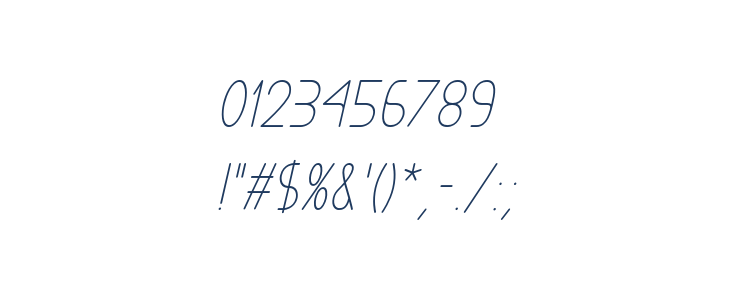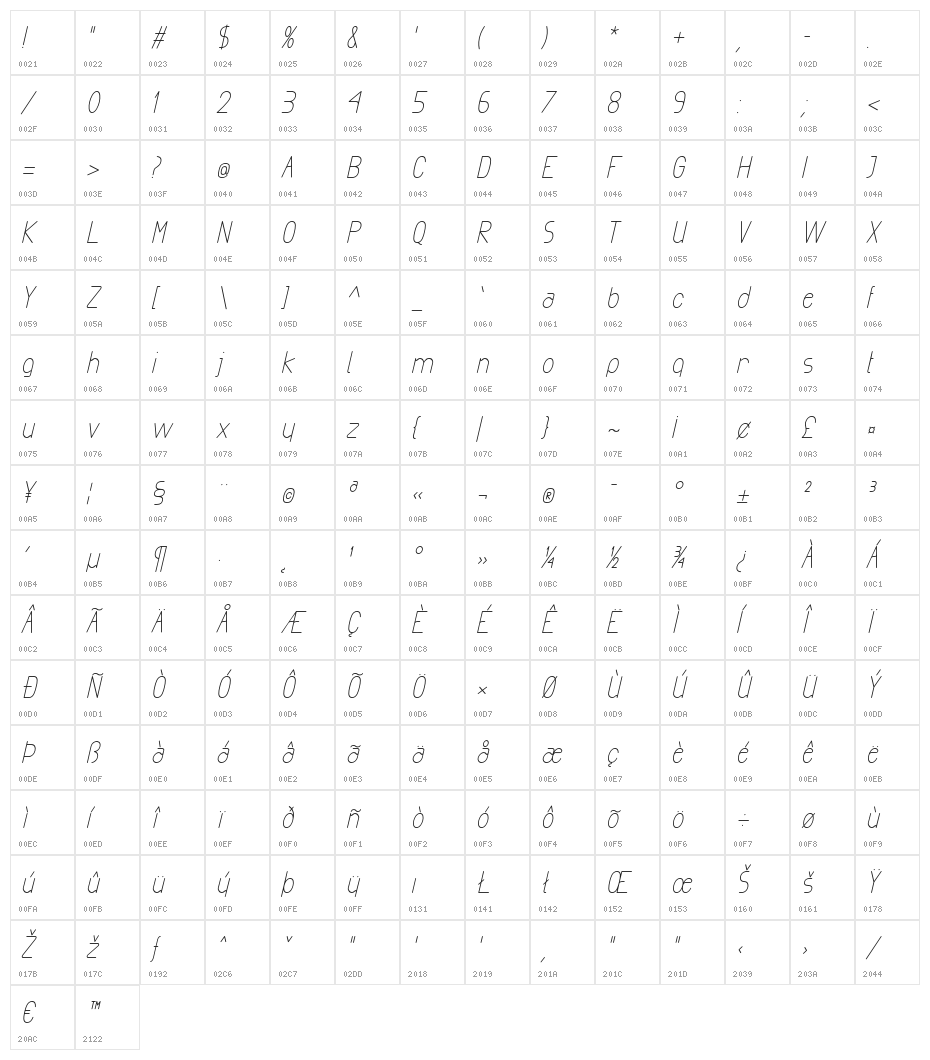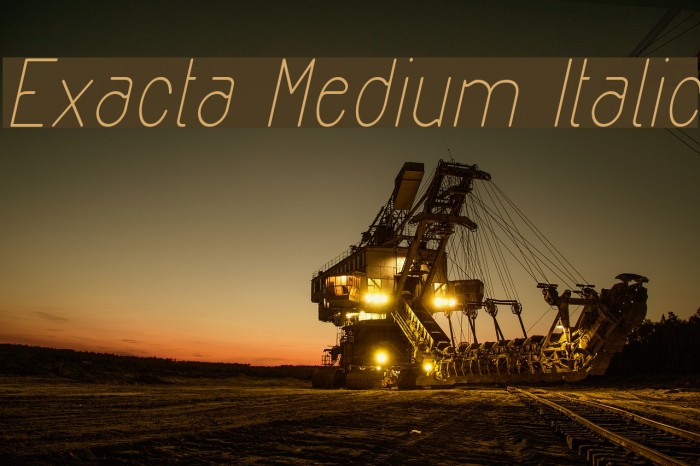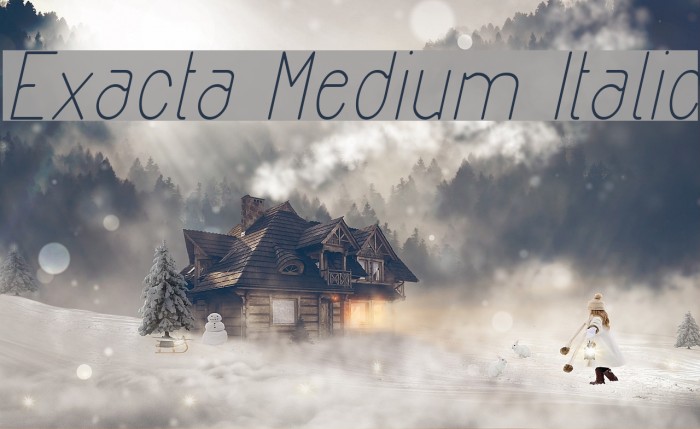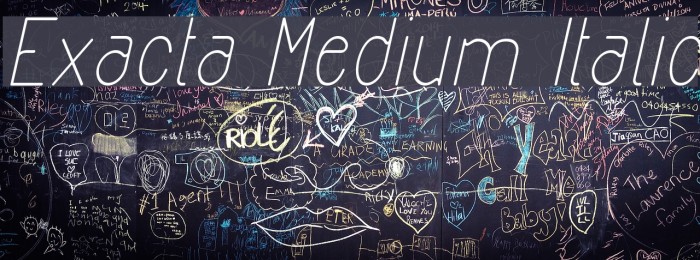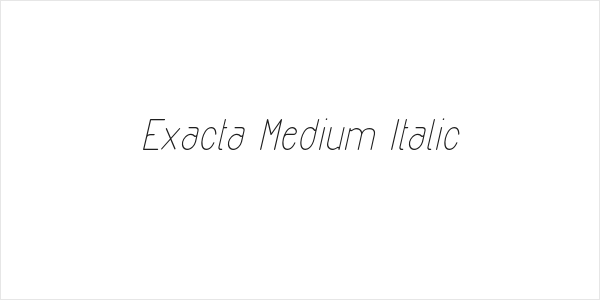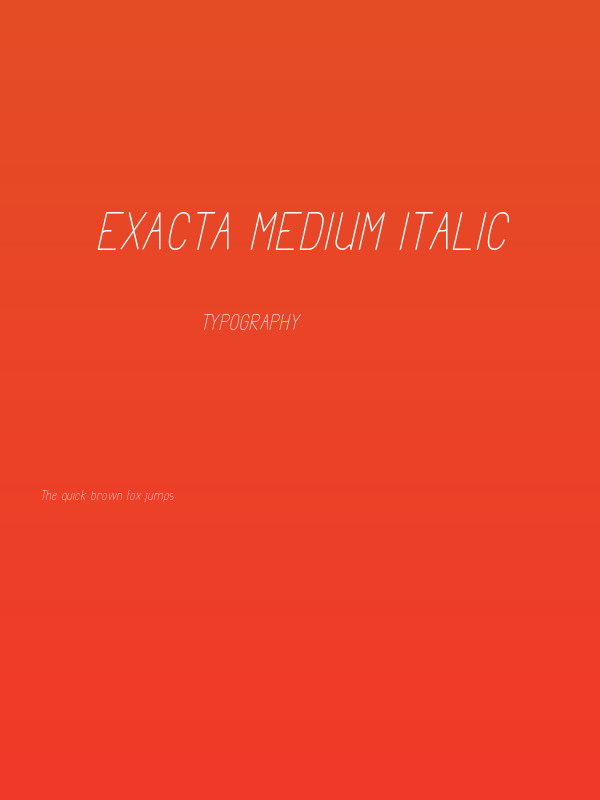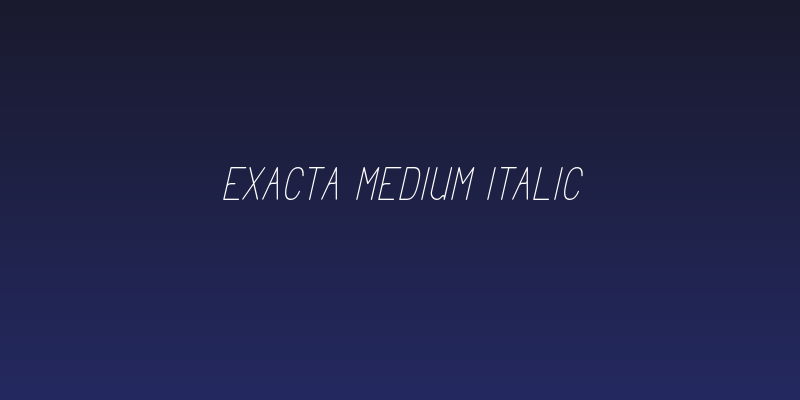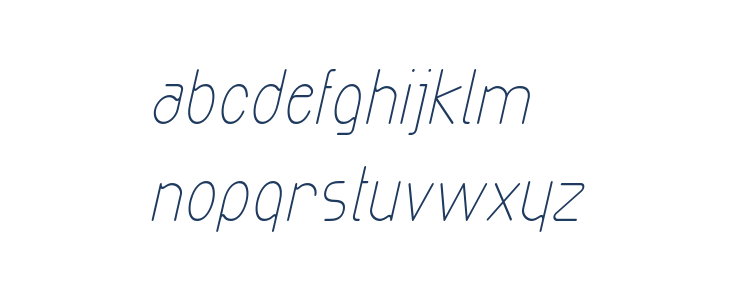
Exacta Medium Italic Font
Exacta Medium Italic Description
This font features a sleek and modern design with a distinct italic slant, giving it a dynamic and forward-moving appearance. The characters are elongated and slightly condensed, providing a sophisticated and elegant look. The strokes are uniform in thickness, which contributes to a clean and streamlined aesthetic. The uppercase letters are tall and commanding, while the lowercase letters maintain a consistent flow, enhancing readability. The numerals are clear and well-proportioned, making them suitable for various applications. The special characters are crafted with the same attention to detail, ensuring a cohesive overall style.